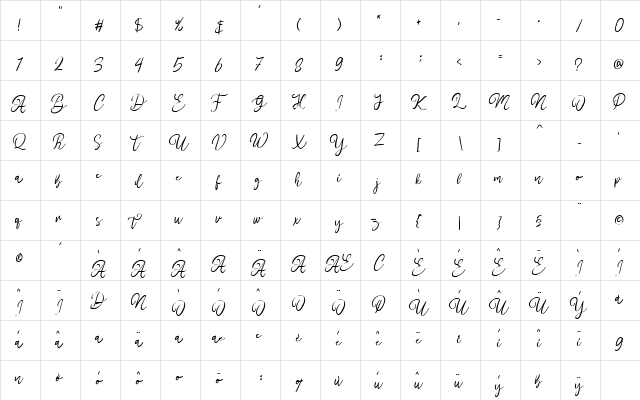
Antens Script Regular
| Foundry | Vultype Co |
| Designer | Vultype Co |
Design Context for Antens Script Typeface
Antens Script brings a calligraphic fluidity to the page — its connecting strokes and expressive curves give it an unmistakably human quality.